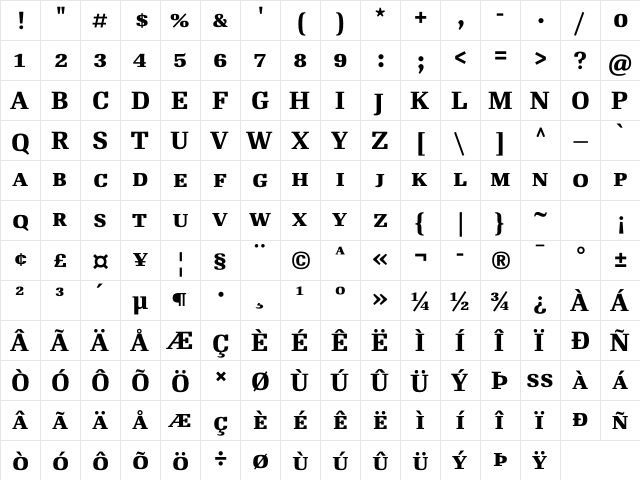
RePublic Text Bold SC
Design Context for RePublic Text Typeface
RePublic Text offers clean, dependable letterforms without strong stylistic allegiance, making it a practical choice for designers who need flexibility. Its bold stroke weight gives it real presence on the page.
Pro Tip: Use RePublic Text in both headline and body roles to test its range before committing to a single application.